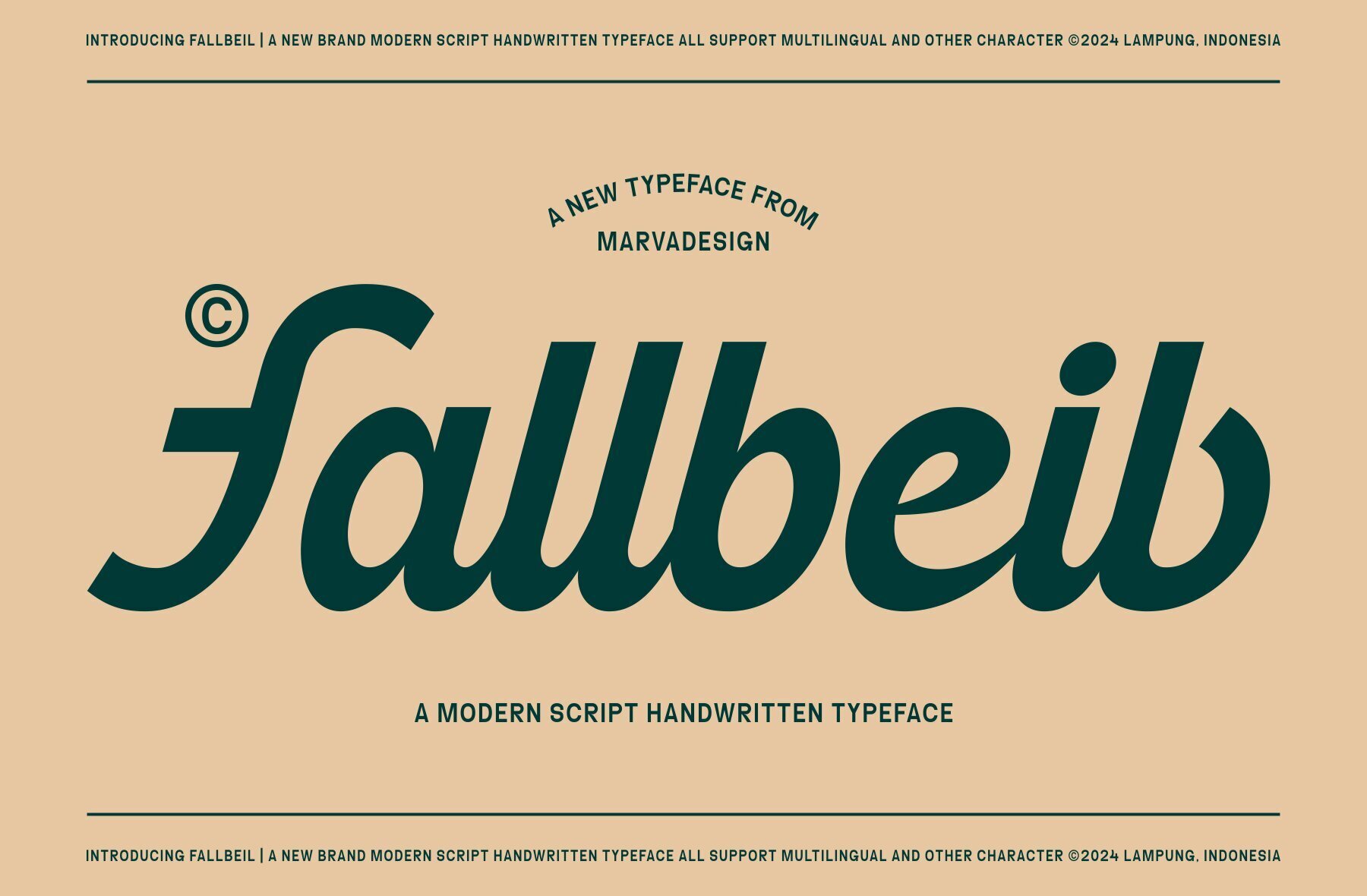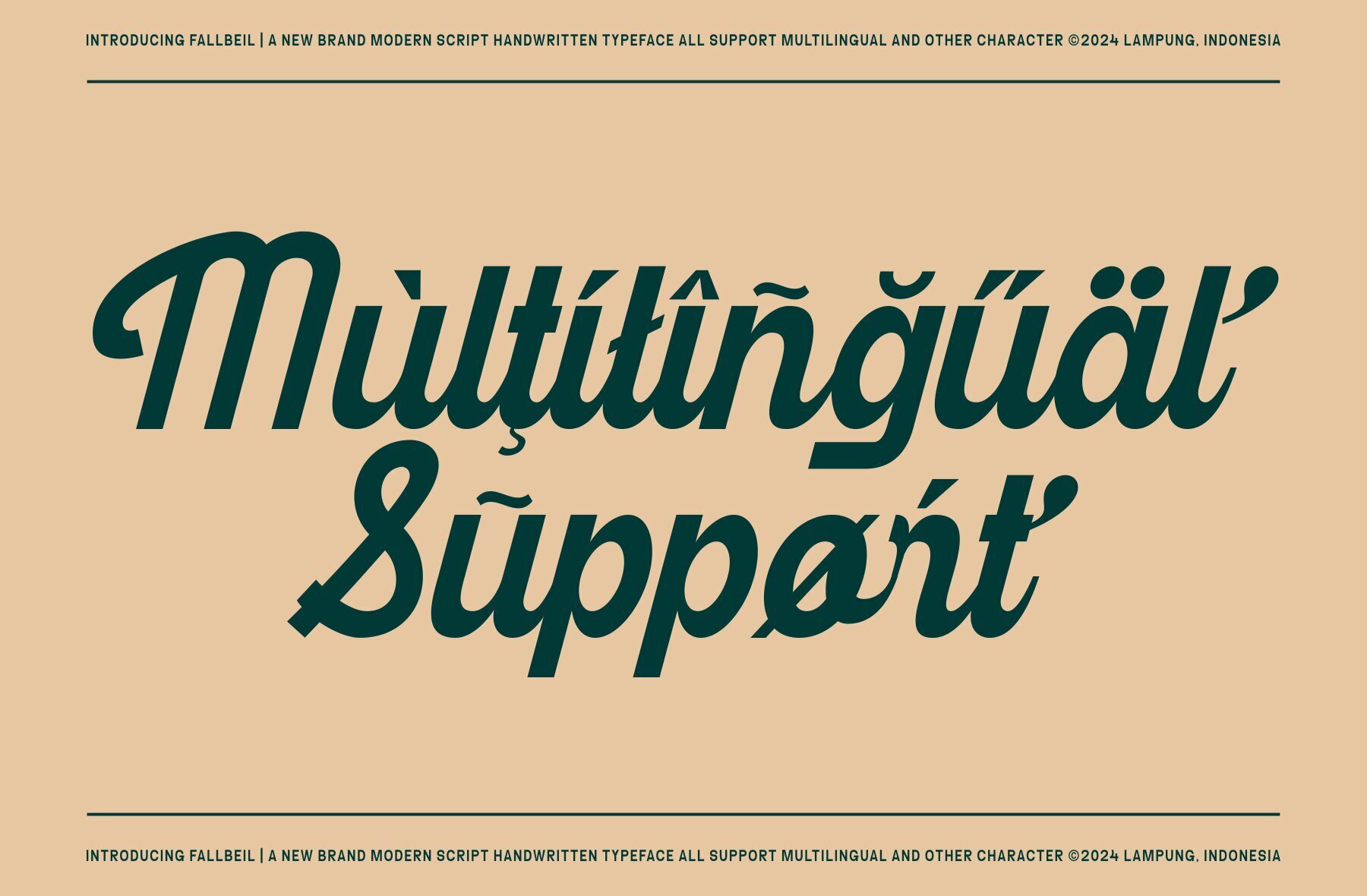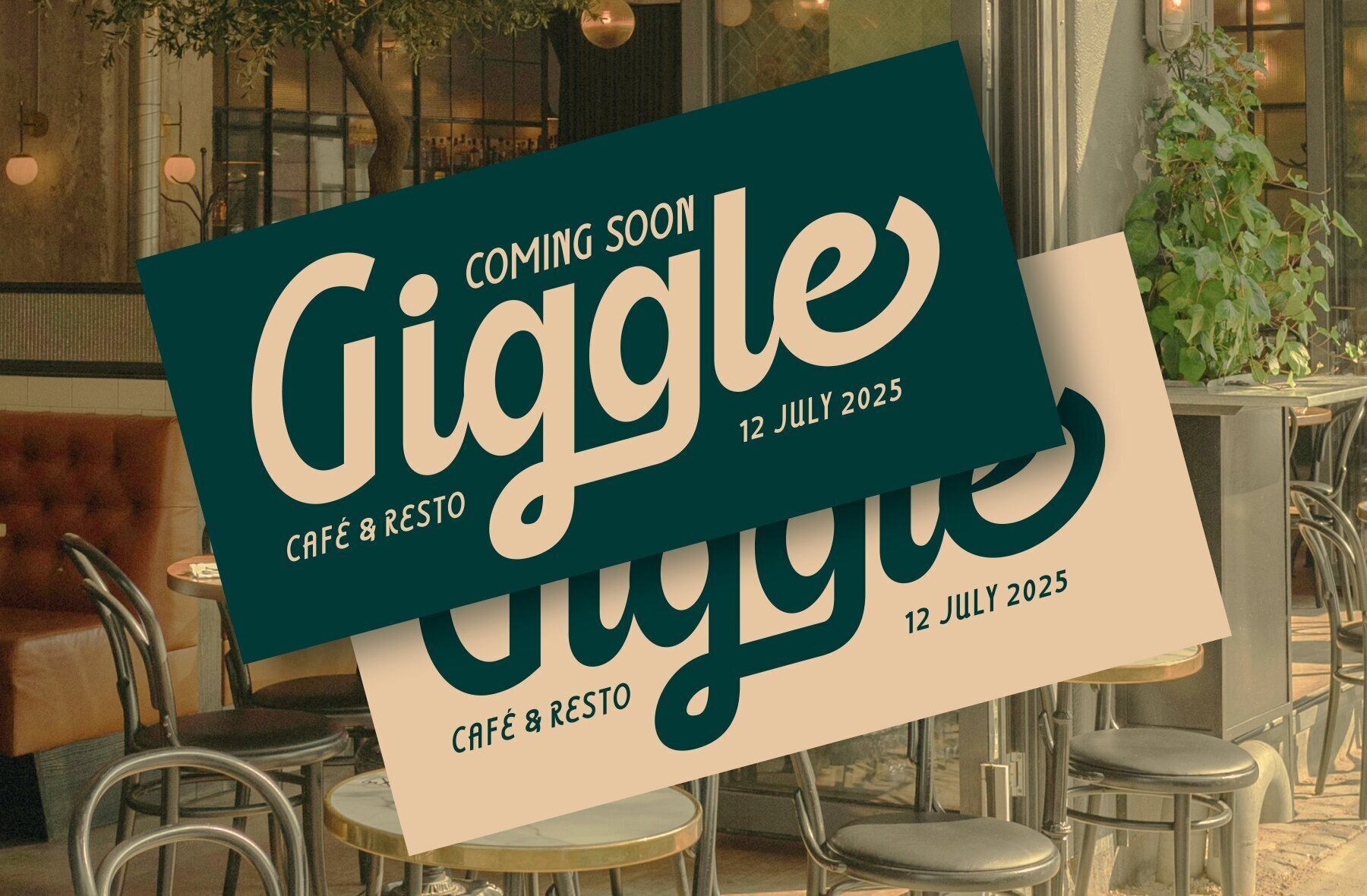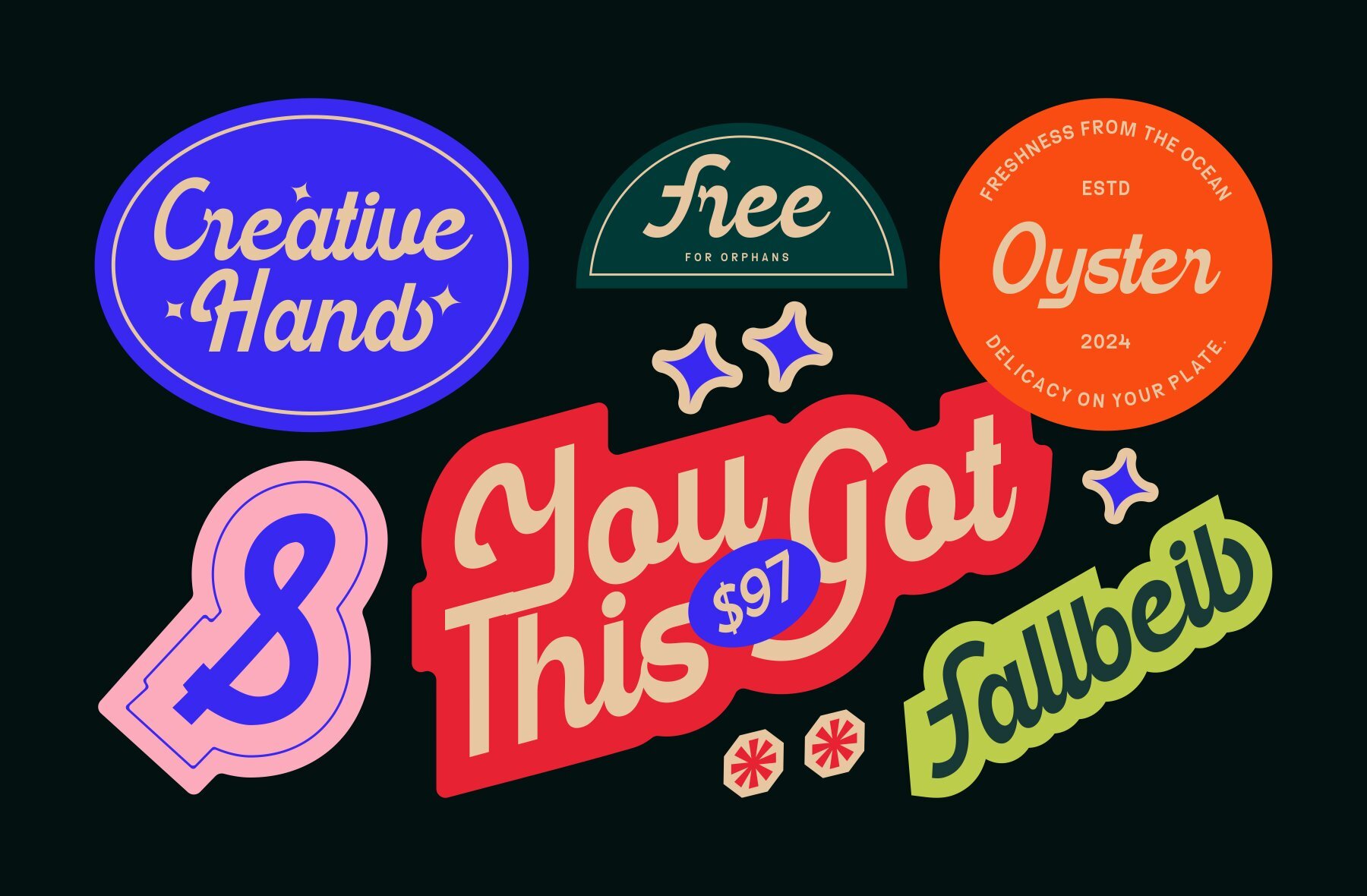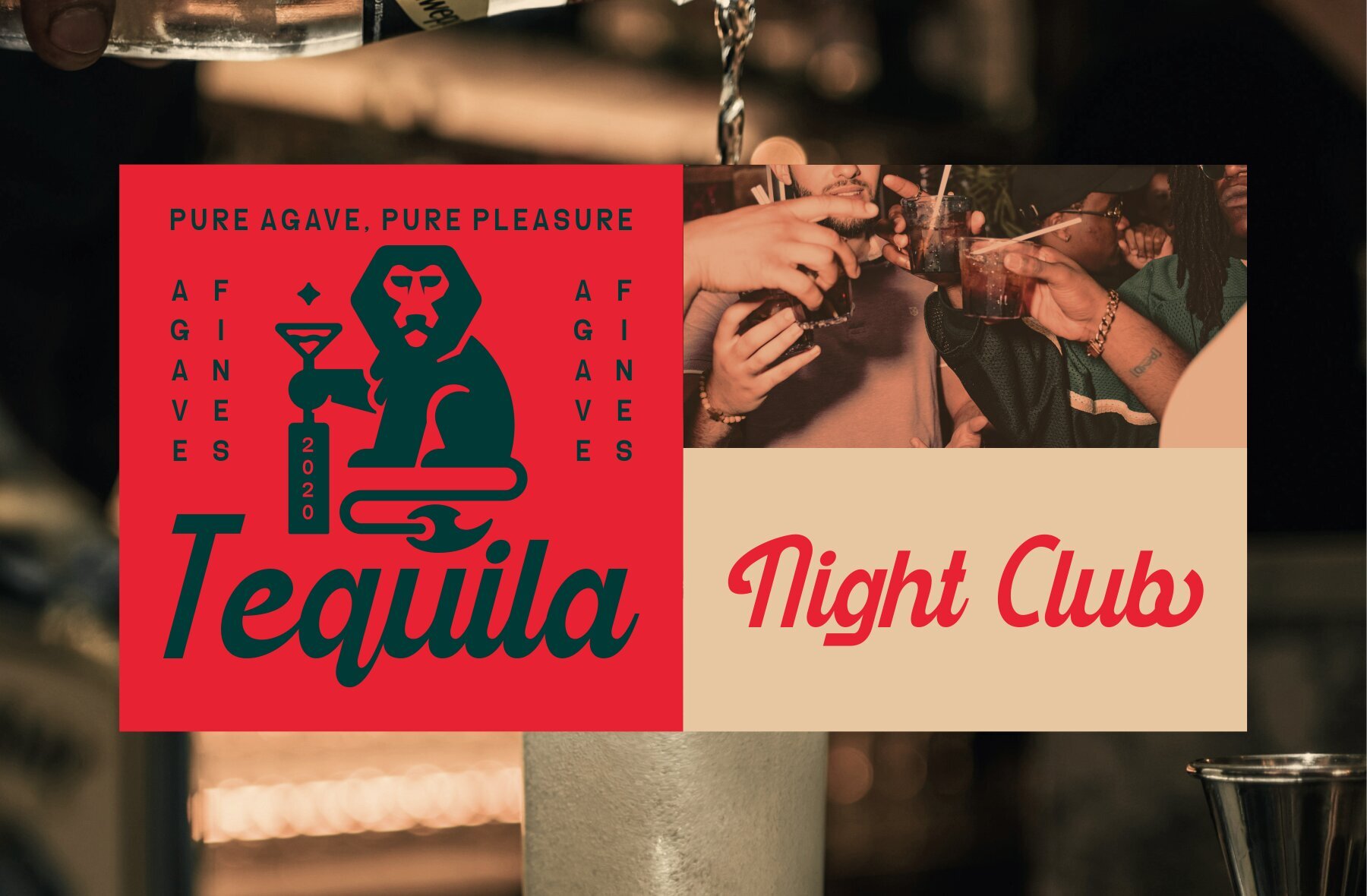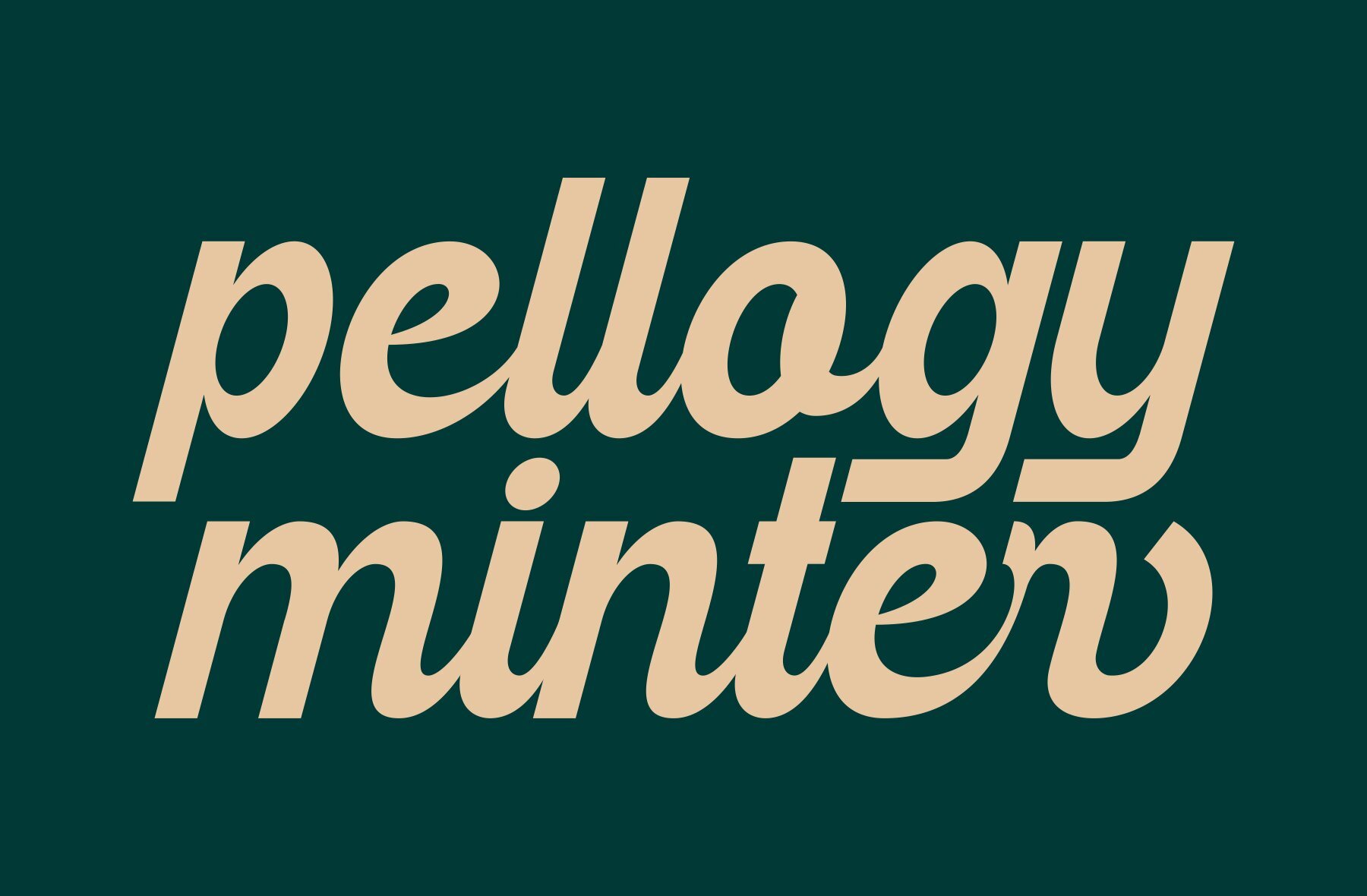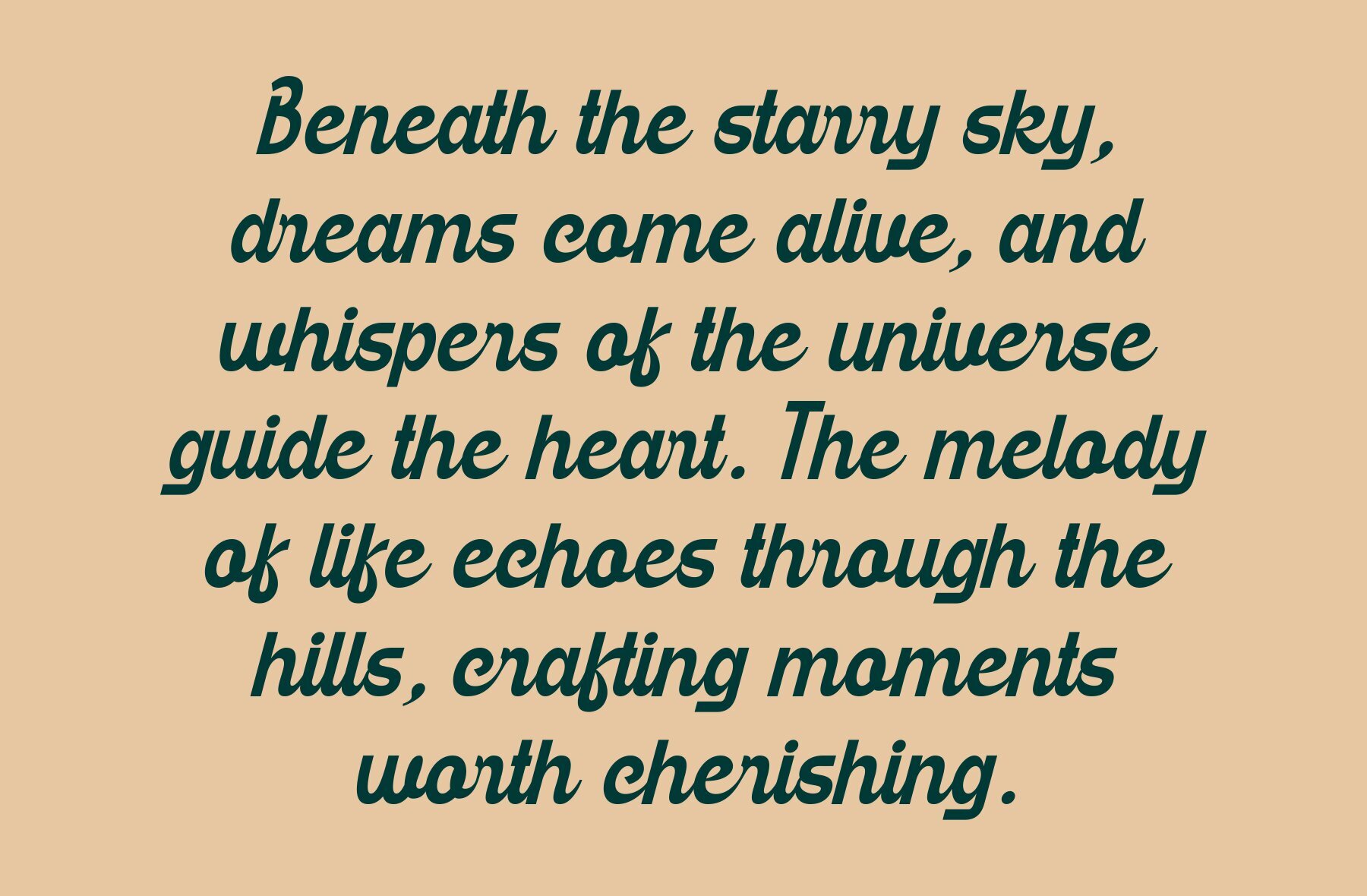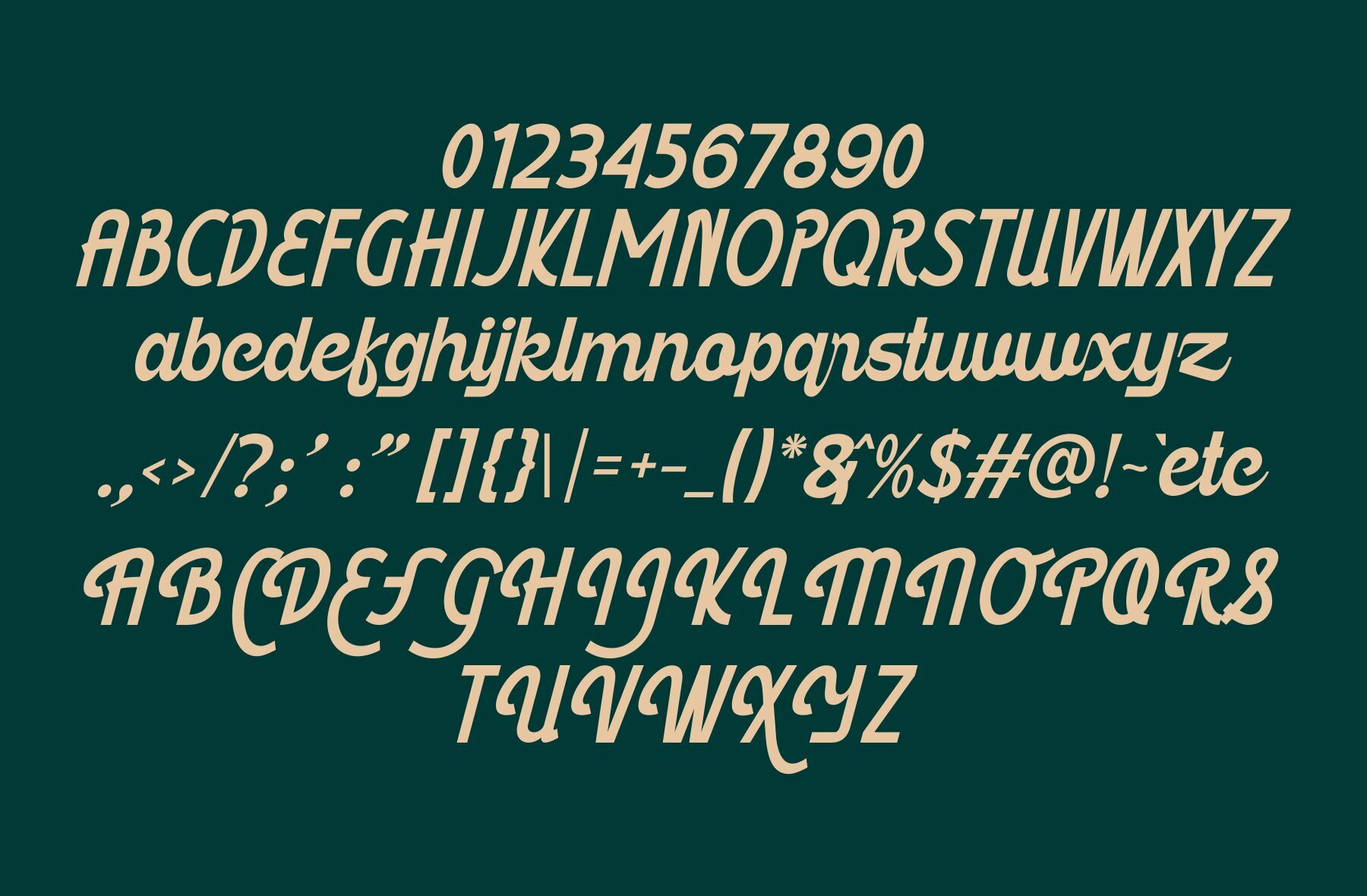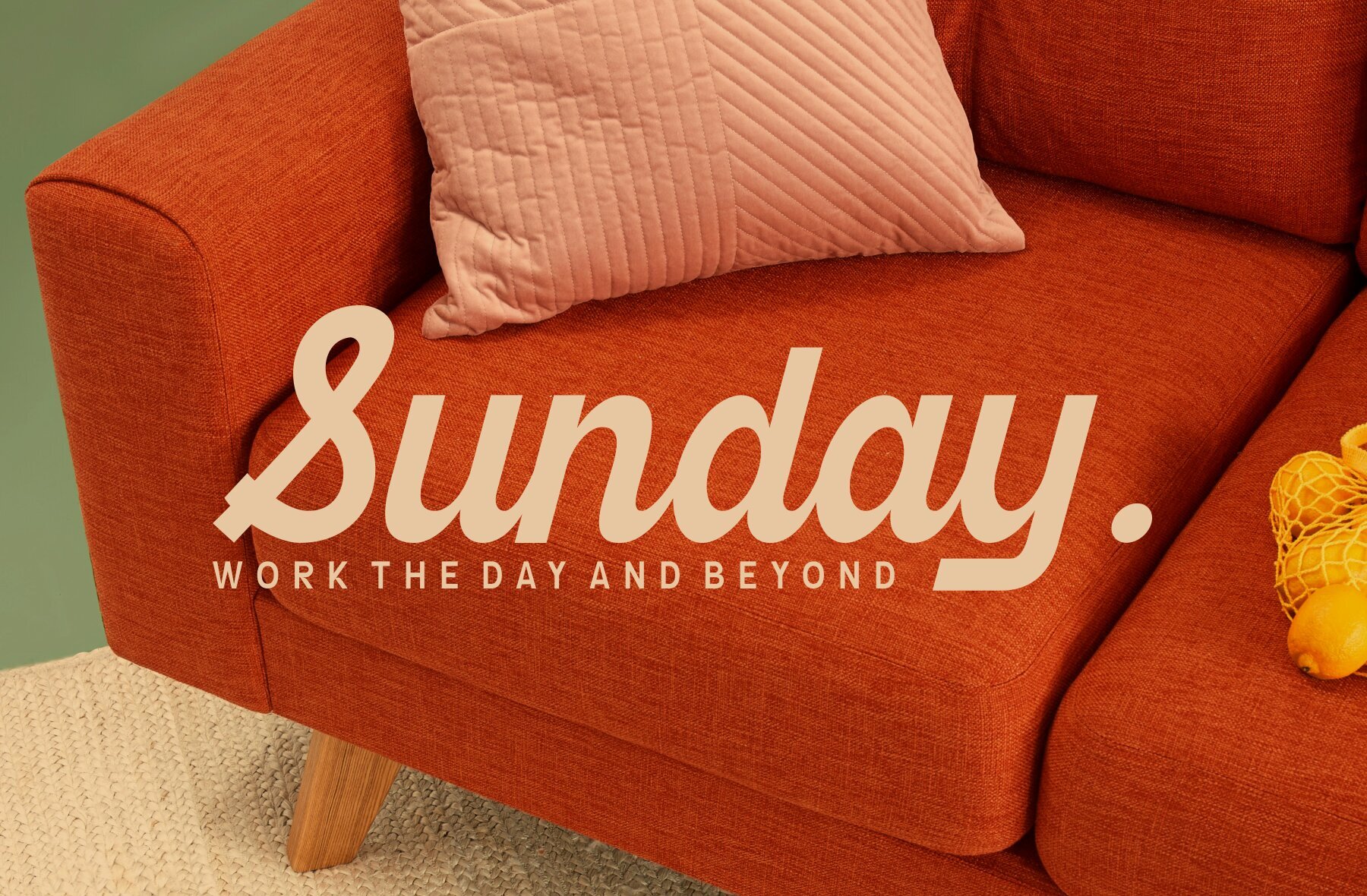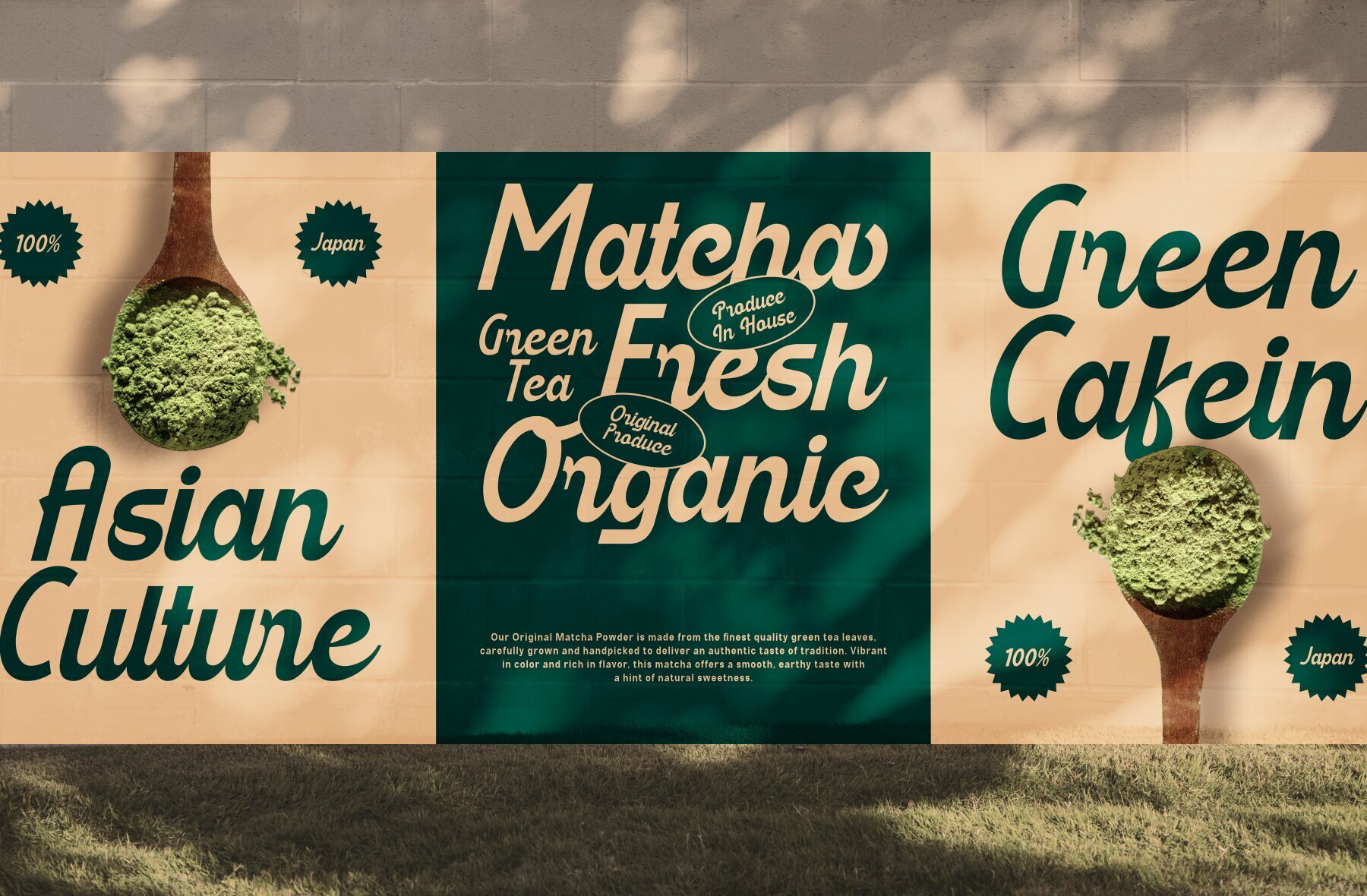
Fallbeil Font
Fallbeil
Fallbeil is a modern script typeface that combines strength with structured elegance, thanks to its bold and patterned design. This stylish font boasts unique characters, making it instantly recognizable and memorable. Its versatility allows it to seamlessly adapt across various applications--ideal for logos, typography, posters, apparel designs, and other creative projects.
Designed to deliver a distinctive visual impact, Fallbeil is perfect for both professional branding and artistic endeavors. Its sophisticated yet bold appearance ensures that your work stands out while maintaining a sense of refinement, making it a valuable addition to any designer's toolkit.